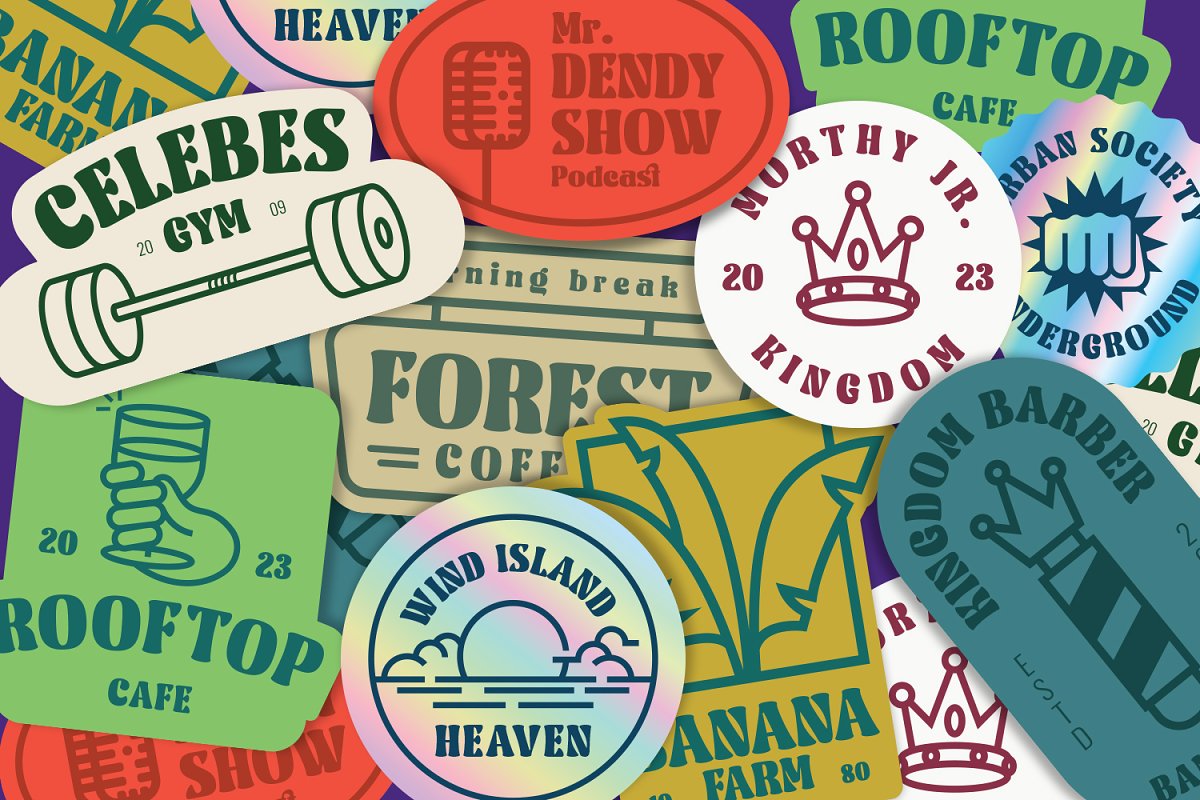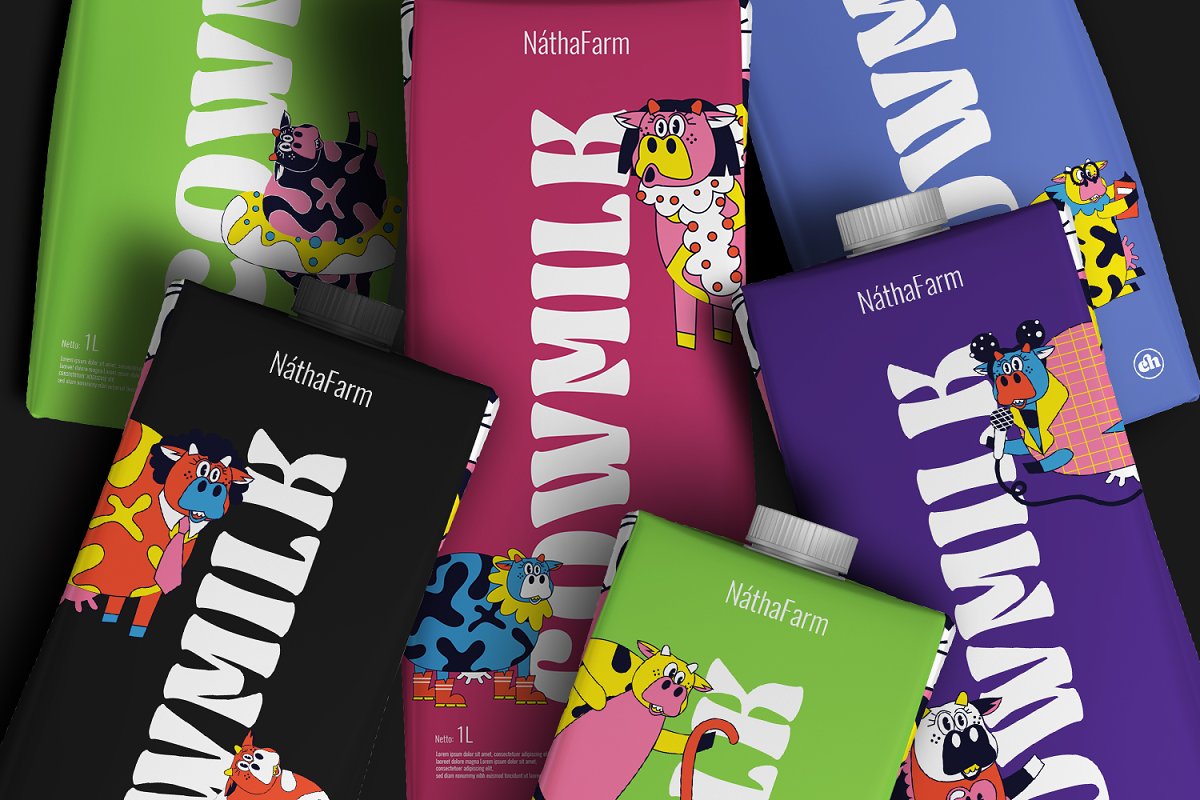
About the Mighty Monday
Mighty Monday is an adorable serif display font that will bring a smile to your designs, This font duo special characteristic lies in its cute and endearing serifs, which add a touch of whimsy and character to each letter, The fairly thick weight of the font enhances its boldness and creates a visual impact, Inspired by the charm of playful design, Mighty Monday captures the essence of cuteness and joy
The letterforms are carefully designed to be friendly and approachable, making them perfect for designs targeted at children or any audience that appreciates a lighthearted and cheerful aesthetic, This font brings a sense of fun and playfulness to your designs
The uppercase letterforms are carefully crafted to maintain legibility and clarity, even in the thick weight, Each letter retains its distinctive characteristics, allowing your message to be easily understood, You can use it in big text sizes to be greatly legible and enjoy the available features here
Features:Stylistic SetsLigaturesMultilingual SupportsPUA EncodedNumerals and PunctuationsMighty Monday fits in children’s books, packaging, greeting cards, headlines, titles, logos, branding materials, and any design project that aims to evoke a sense of cuteness and playfulness